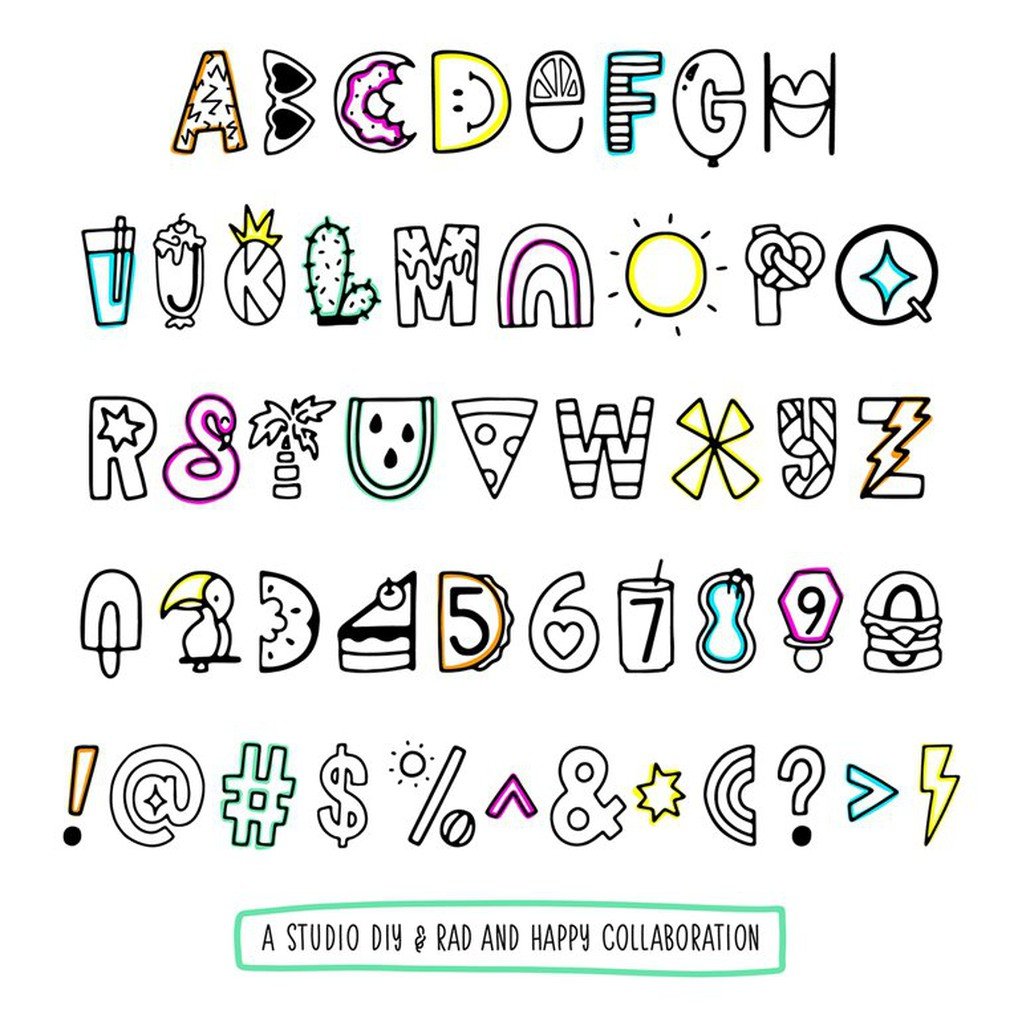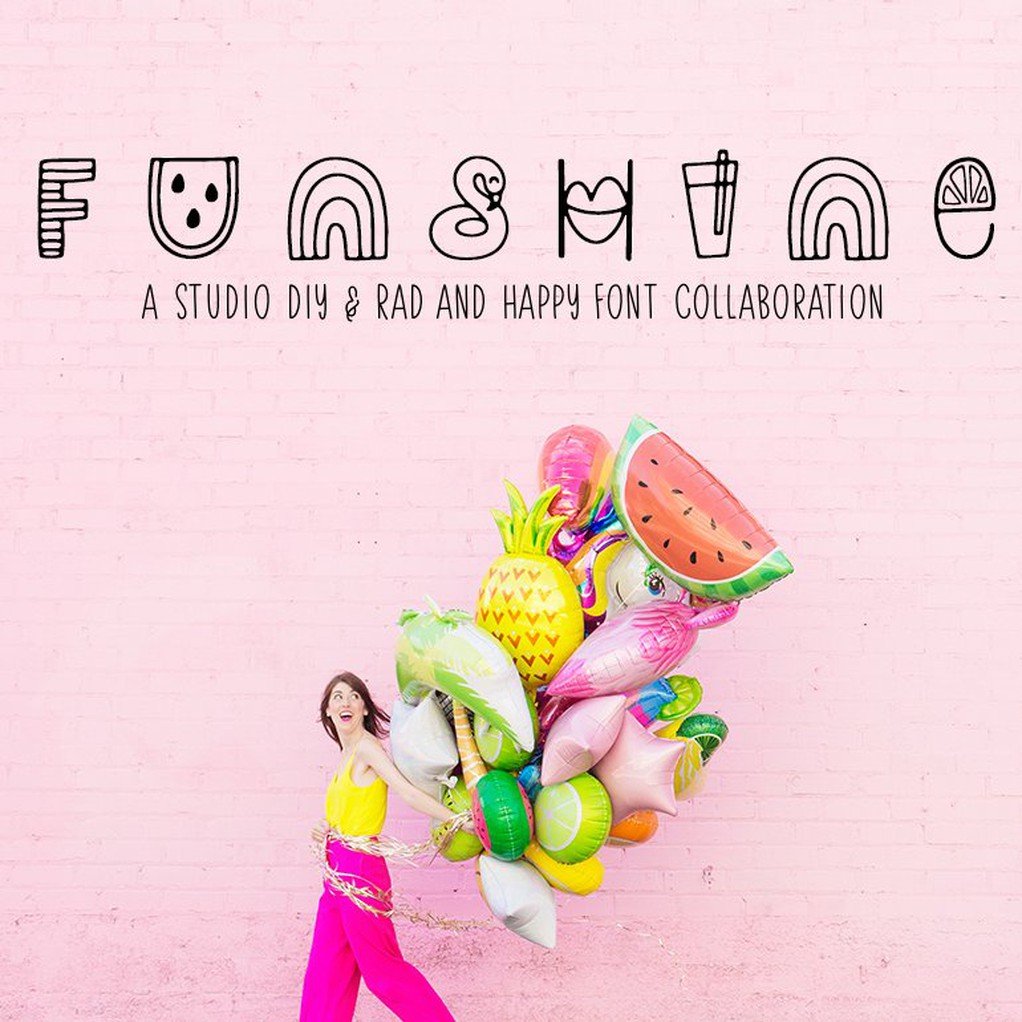
Funshine Font
Description
Hi friend, I teamed up with Kelly Mindell from StudioDIY to create this super fun, summery font that’s perfect for coloring pages, invitations, back-to-school lunchbox notes, gift tags, and so much more—keeping the sunny spirit alive all year!
Why It’s Awesome:
- Made with Love – I partnered with Kelly Mindell to design it!
- Super Summery – Adds a playful, sunny vibe to your projects.
Why Choose the FUNSHINE Font?
This font isn’t just about letters—it’s about keeping summer alive in your projects with a fun, playful vibe that’s perfect for any creation. Whether you’re crafting for fun or for your biz, FUNSHINE will make everything brighter—I’m so stoked for you to try it!